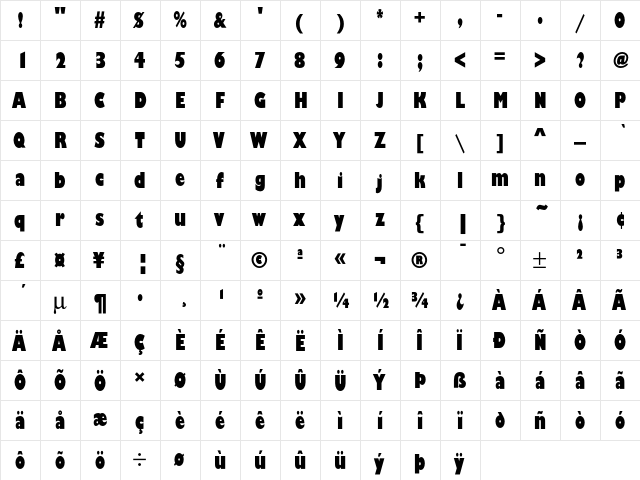
GiltuTUltBolCon Regular
Design Context for GiltuTUltBolCon Typeface
GiltuTUltBolCon takes a measured approach to typography — its balanced proportions and neutral character make it a reliable workhorse for both digital and print work.